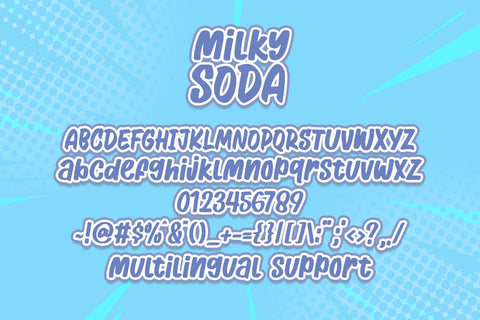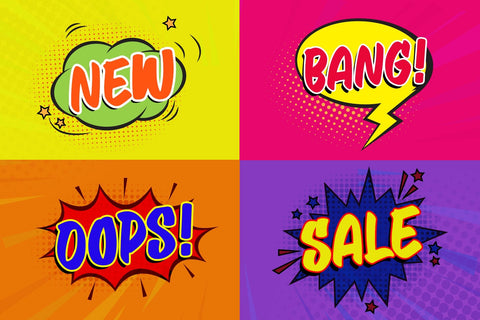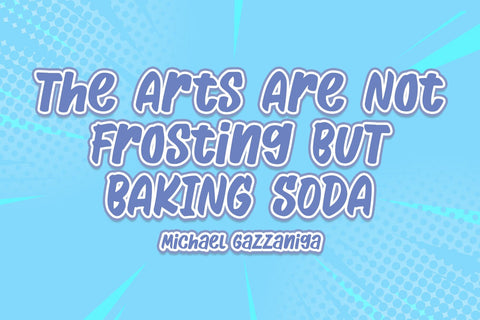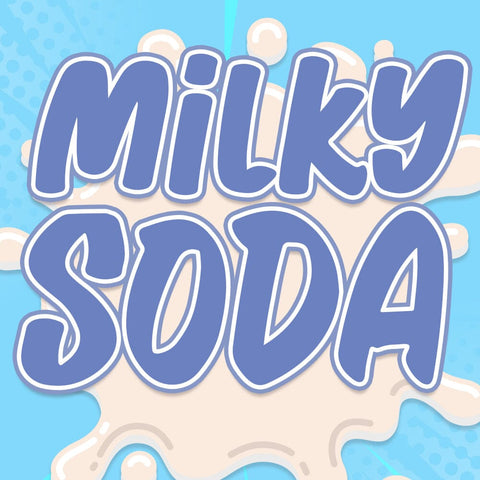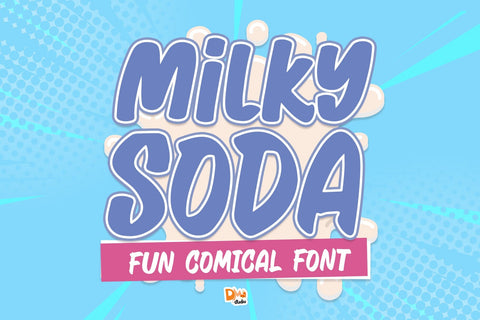
Milky Soda Font
Milky Soda Font is a refreshing and versatile typeface that combines a smooth, fluid design with a bubbly personality. Inspired by the effervescence of soda, this font is perfect for a wide range of design applications, from branding and packaging to digital projects and beyond.
- Bubbly and Refreshing Design: The Milky Soda Font features playful and rounded letterforms that evoke the effervescence of soda bubbles, adding a touch of whimsy to your text.
Versatile Usage:
- Ideal for branding and logo design, giving your projects a distinctive and bubbly character.
- Perfect for product packaging, posters, and promotional materials, adding a playful and refreshing touch.
- Suitable for digital projects, websites, and social media graphics.
Elevate your designs with the playful charm of the Milky Soda Font, where creativity meets effervescence.